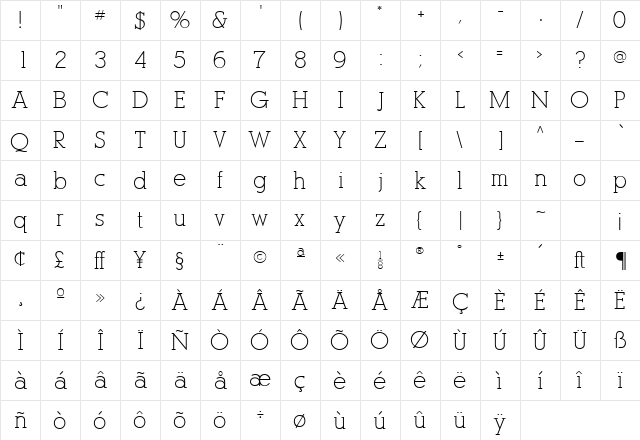
Alexina Regular
Design Context for Alexina Typeface
Alexina offers clean, dependable letterforms without strong stylistic allegiance, making it a practical choice for designers who need flexibility.
Pro Tip: Pair Alexina with a font of contrasting weight or personality to build a more expressive typographic hierarchy.